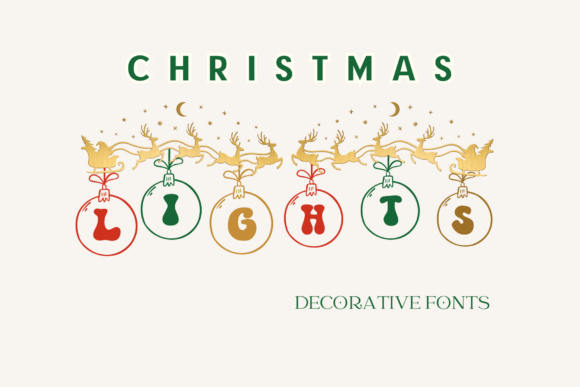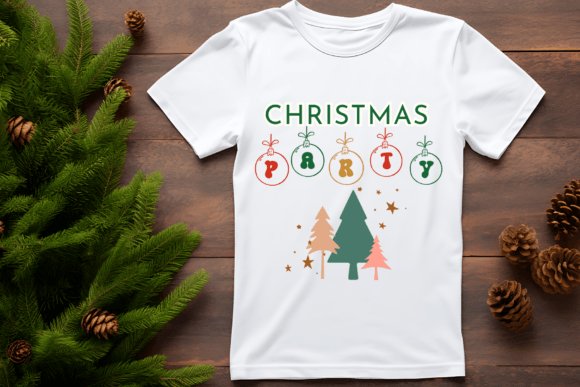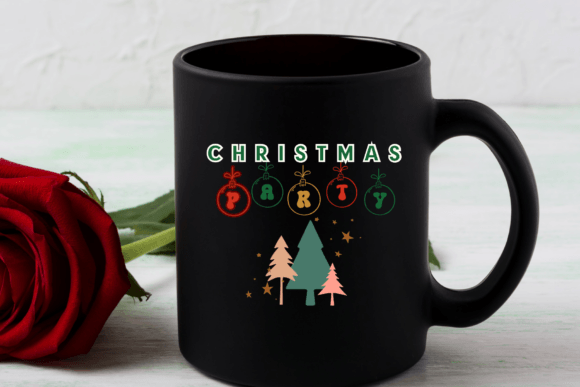
Christmas Lights Font
Christmas Lights is a decorative font featuring letters inside colorful Christmas balls. Each letter sparkles with holiday cheer, making it perfect for festive projects and seasonal designs!